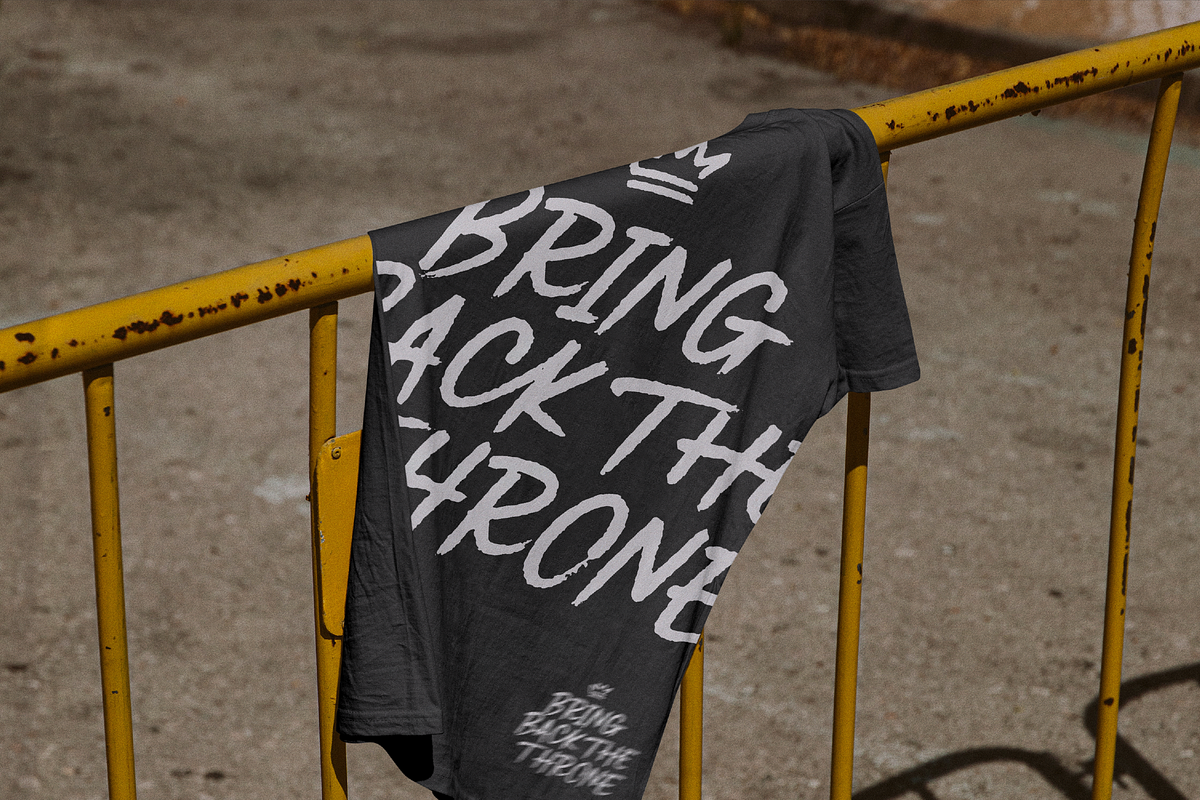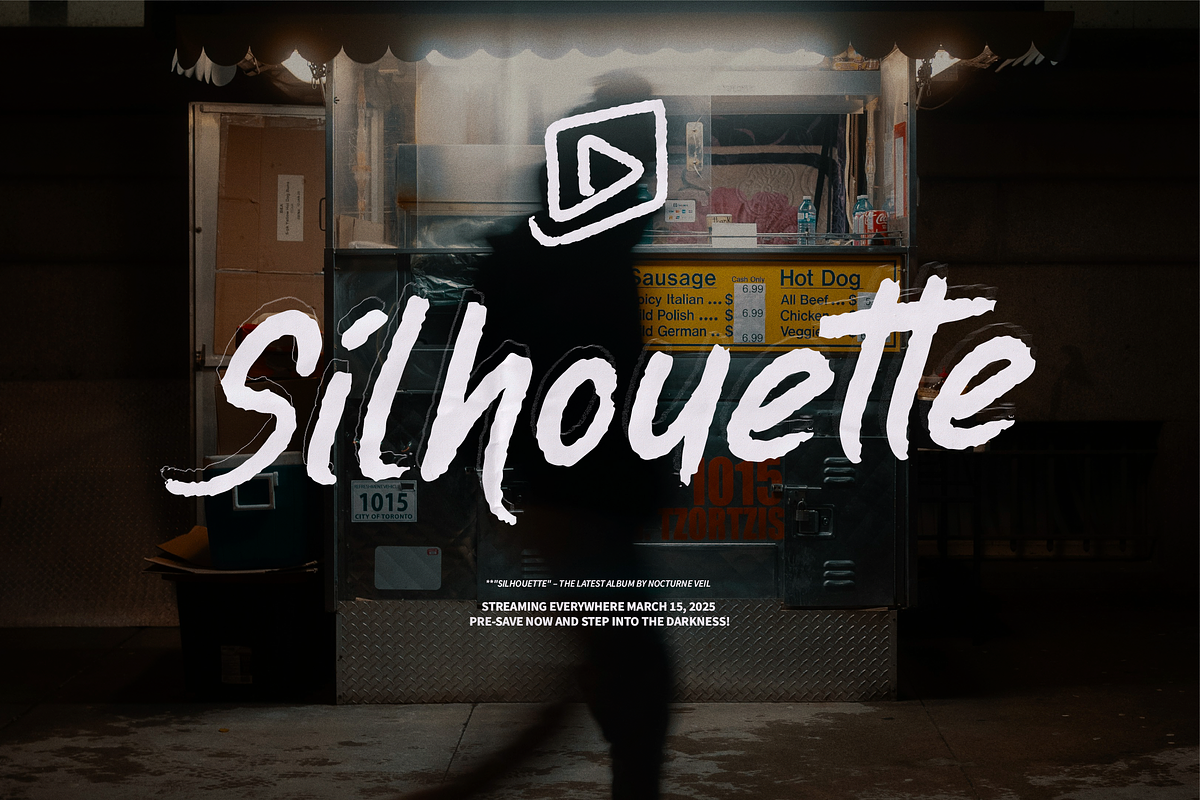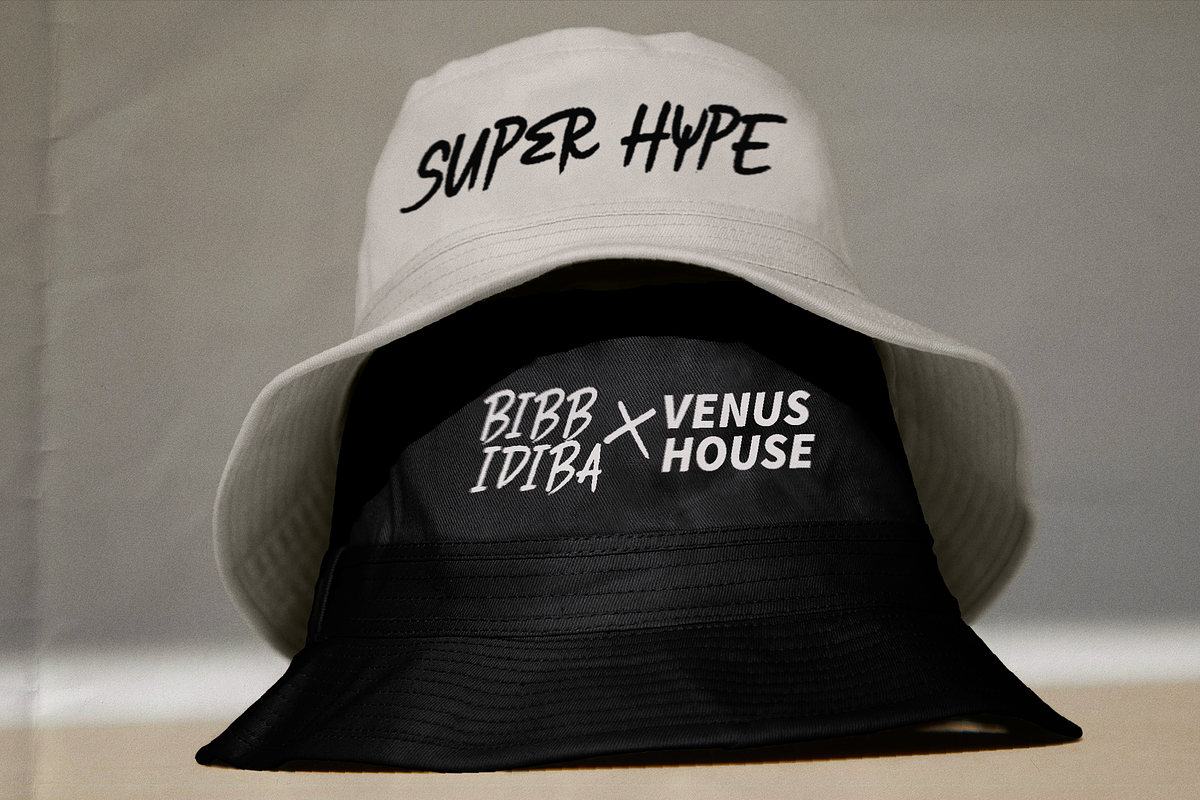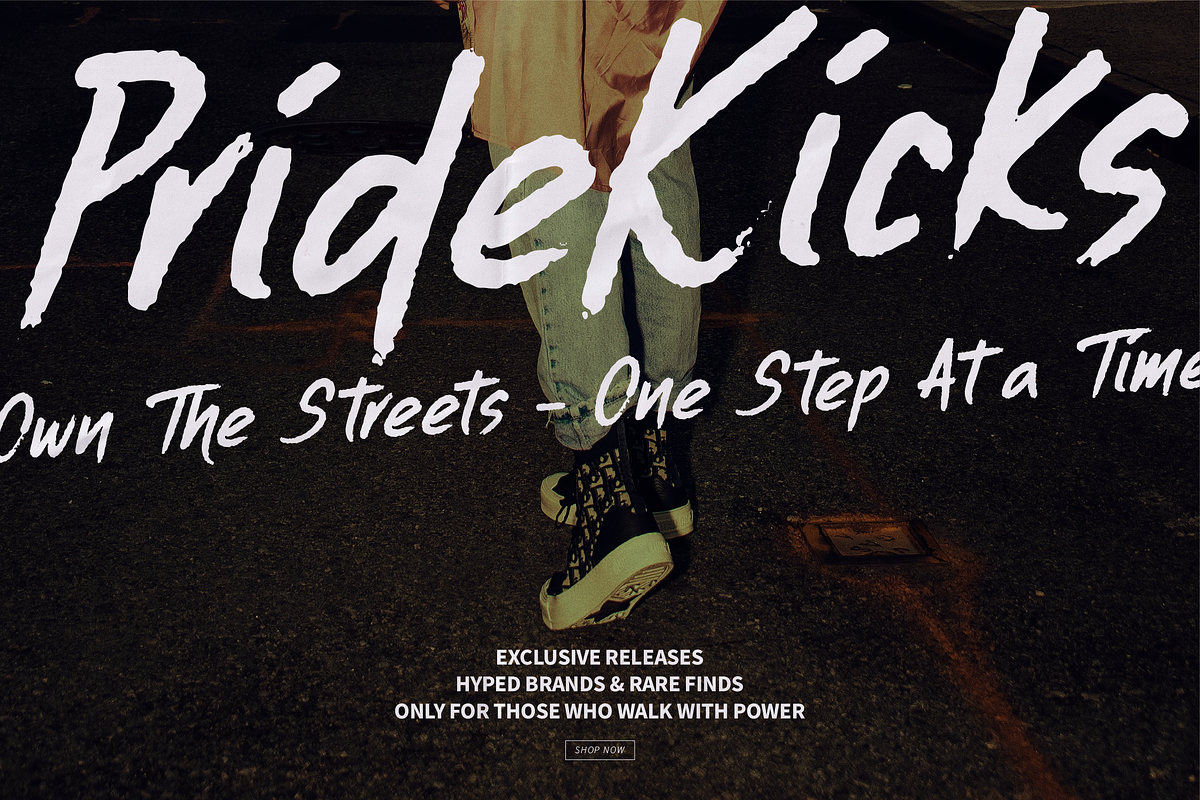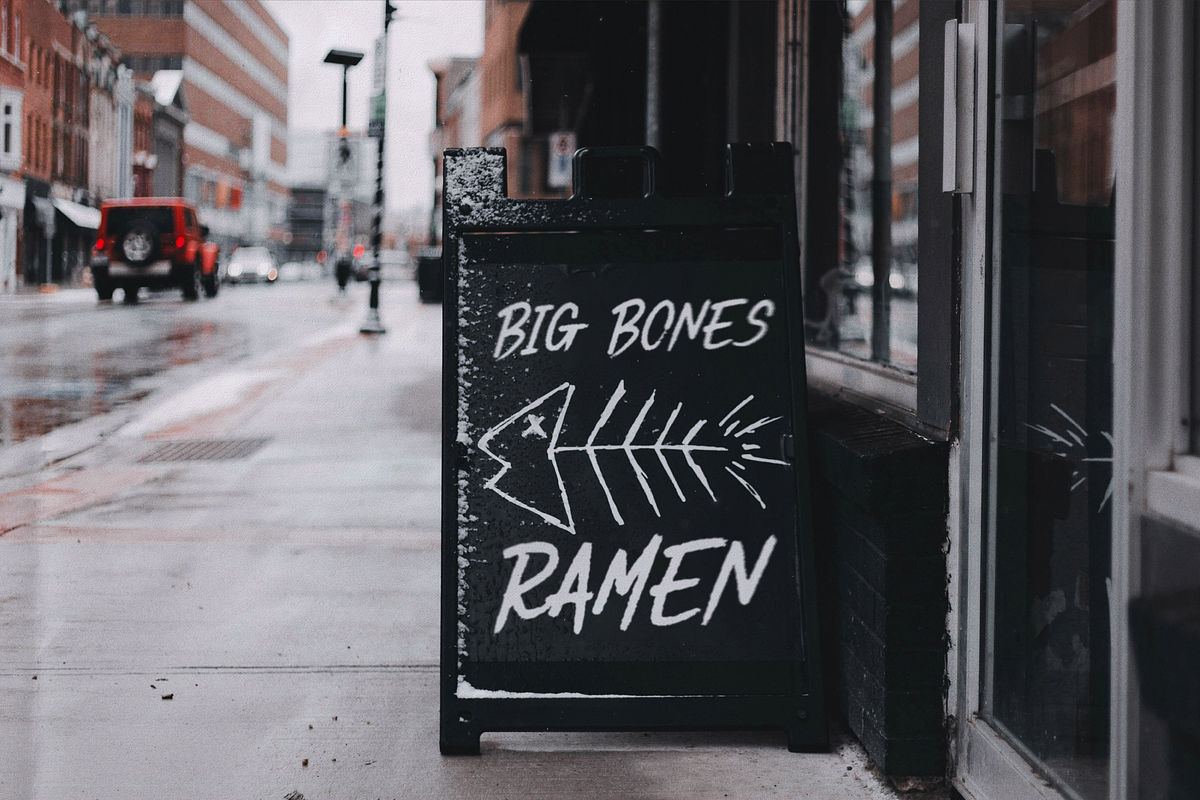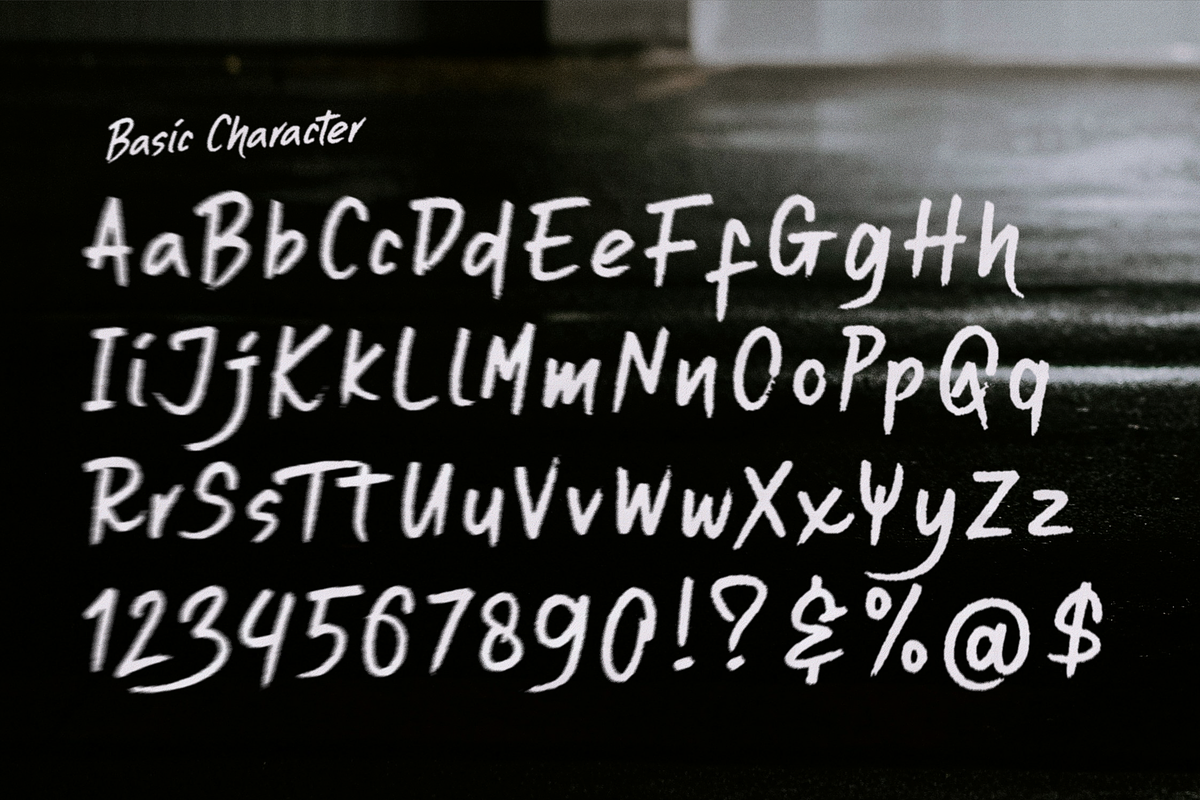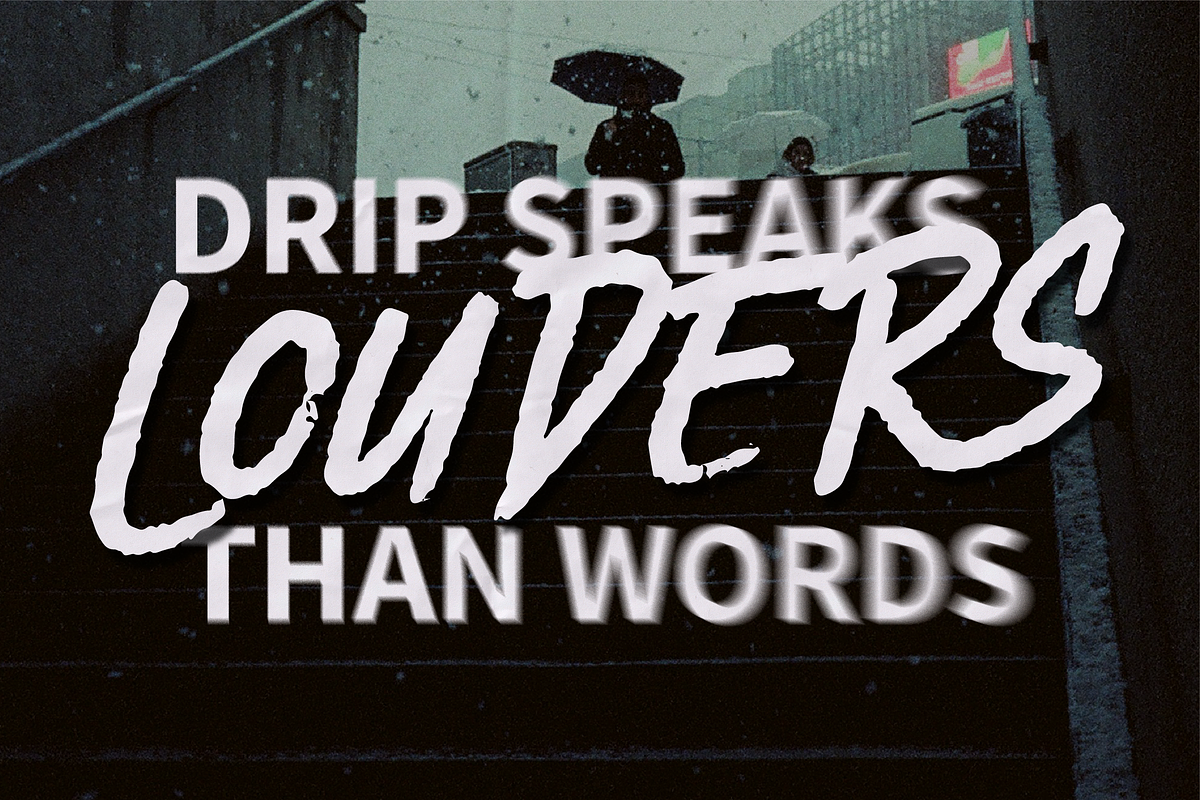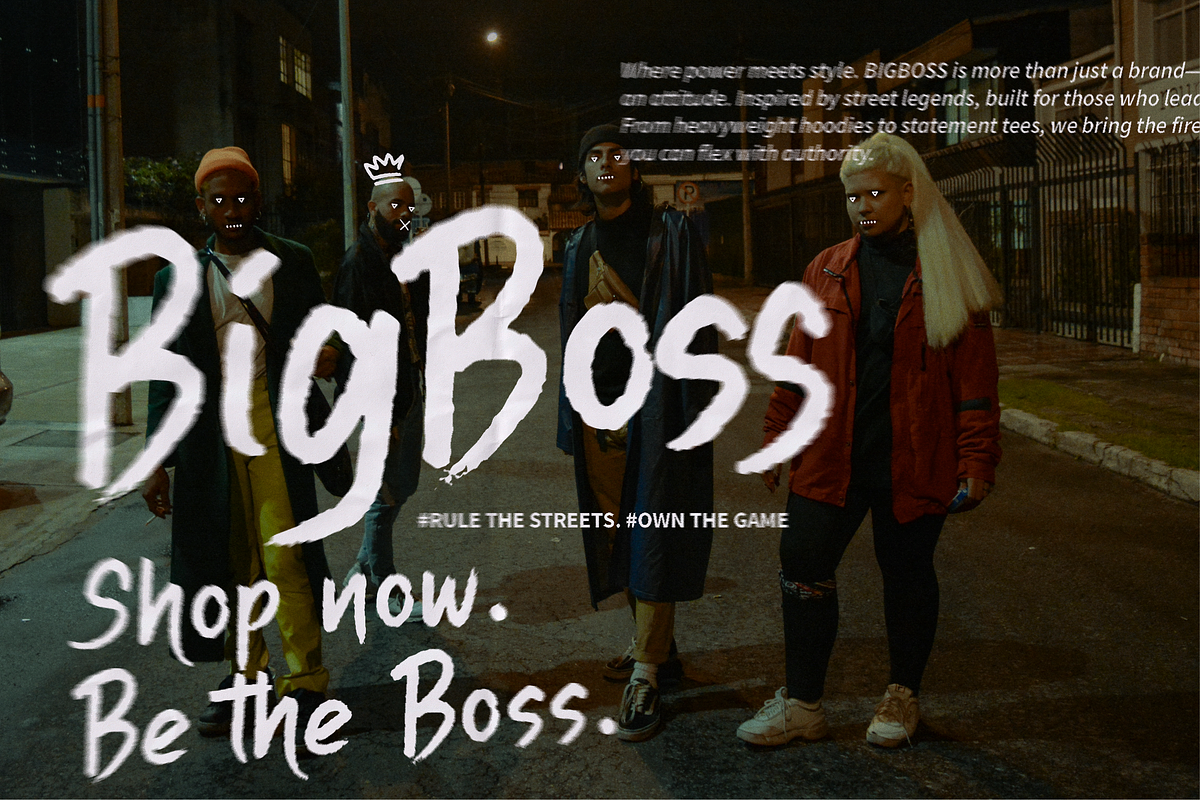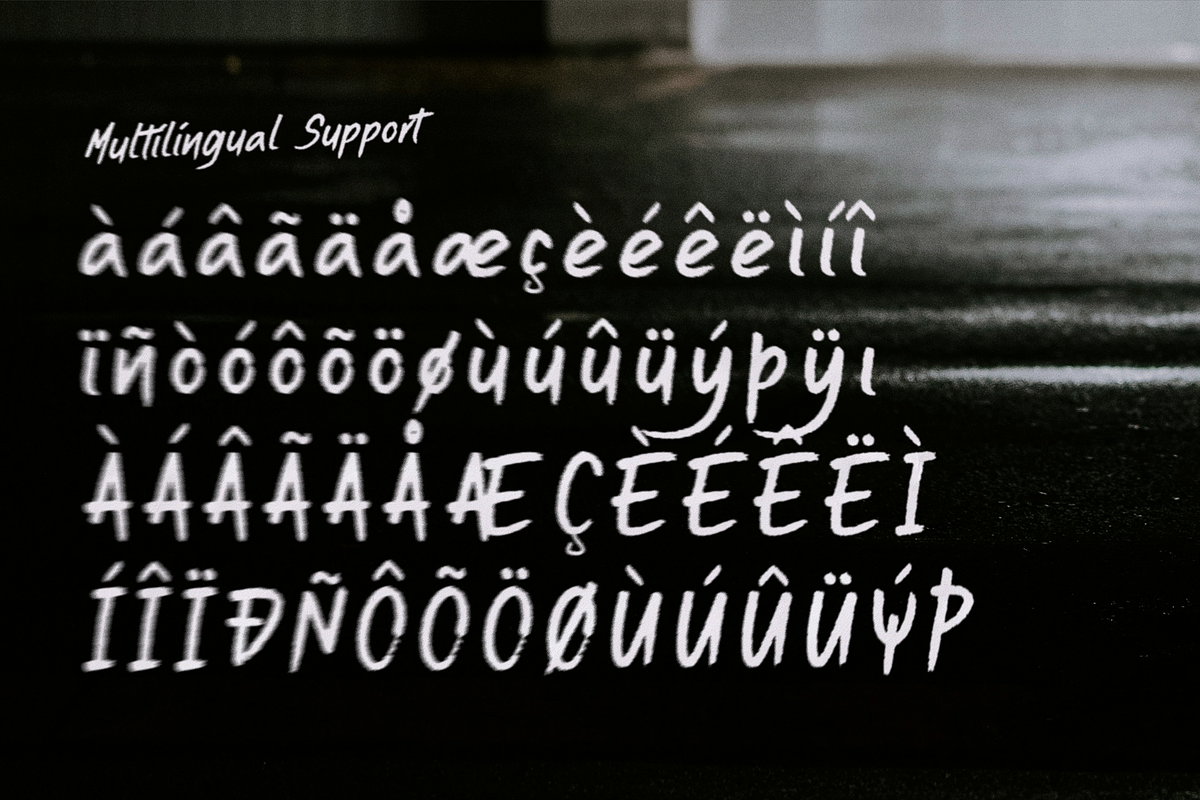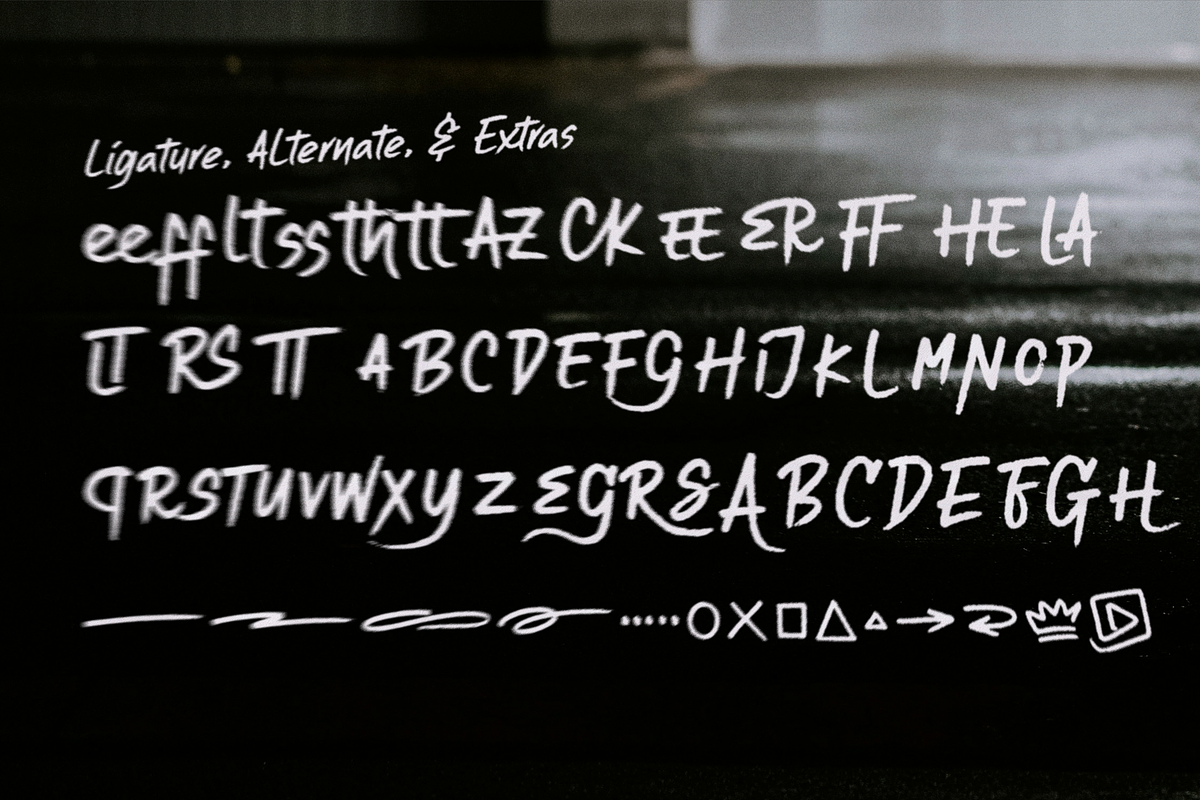
Grand Morisey | Brush Handwritten
Grand Morisey | Brush Handwritten, from Gracetypestudio, suitable for any projects such as: logos, branding projects, homeware designs, product packaging, mugs, quotes, posters, shopping bags, t-shirts, book covers, name card, invitation cards, greeting cards, label, photography, watermark, special events, and all your other lovely projects that need a Brush Handwritten taste.